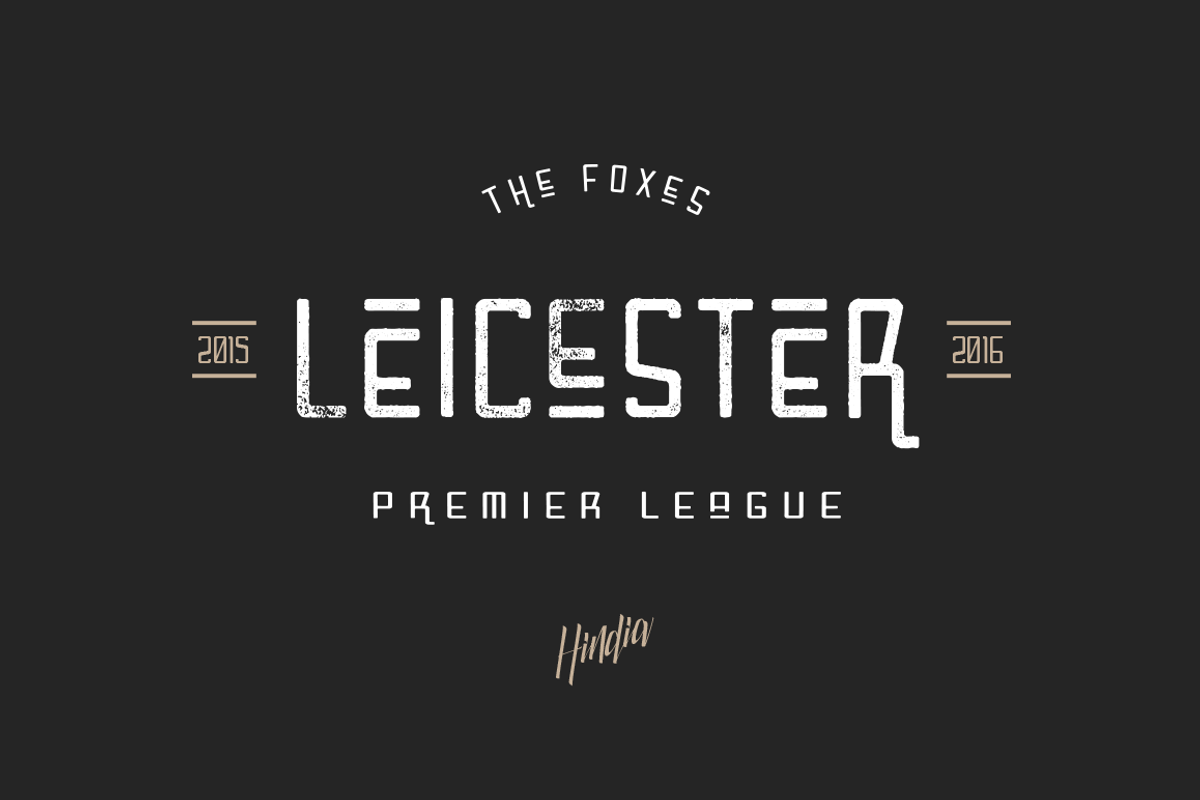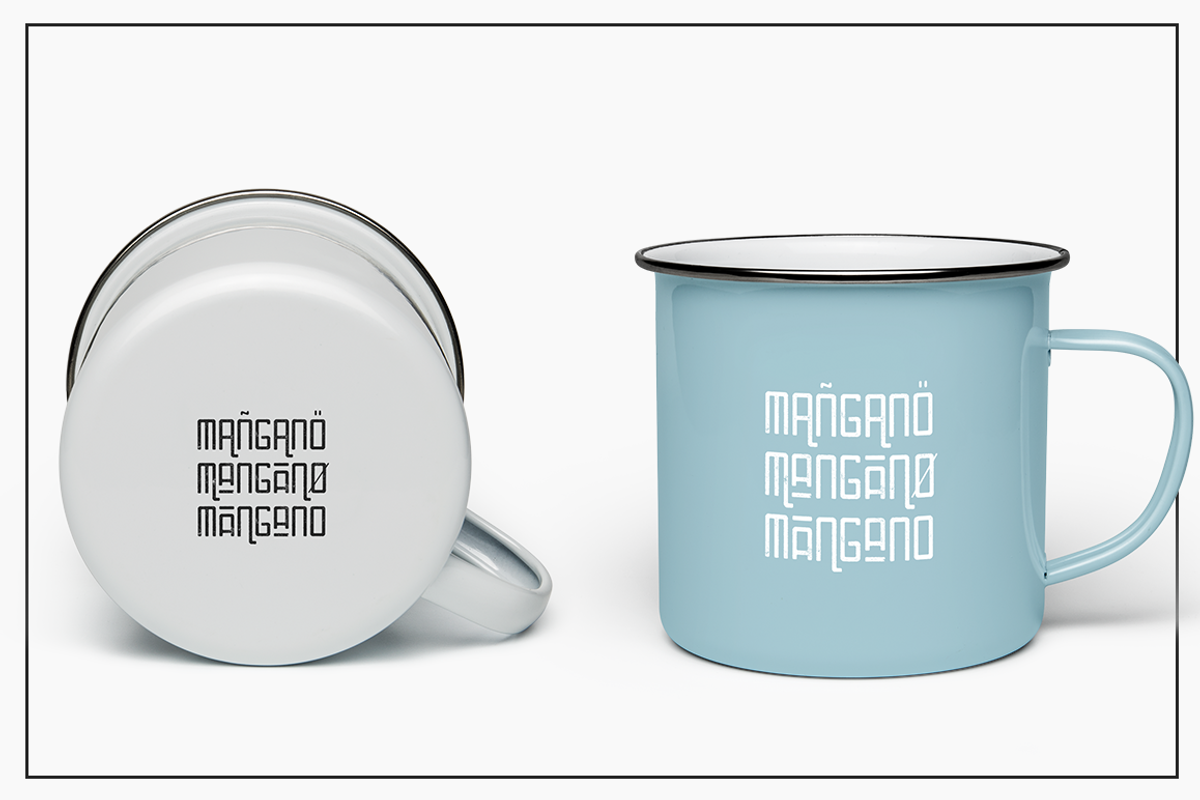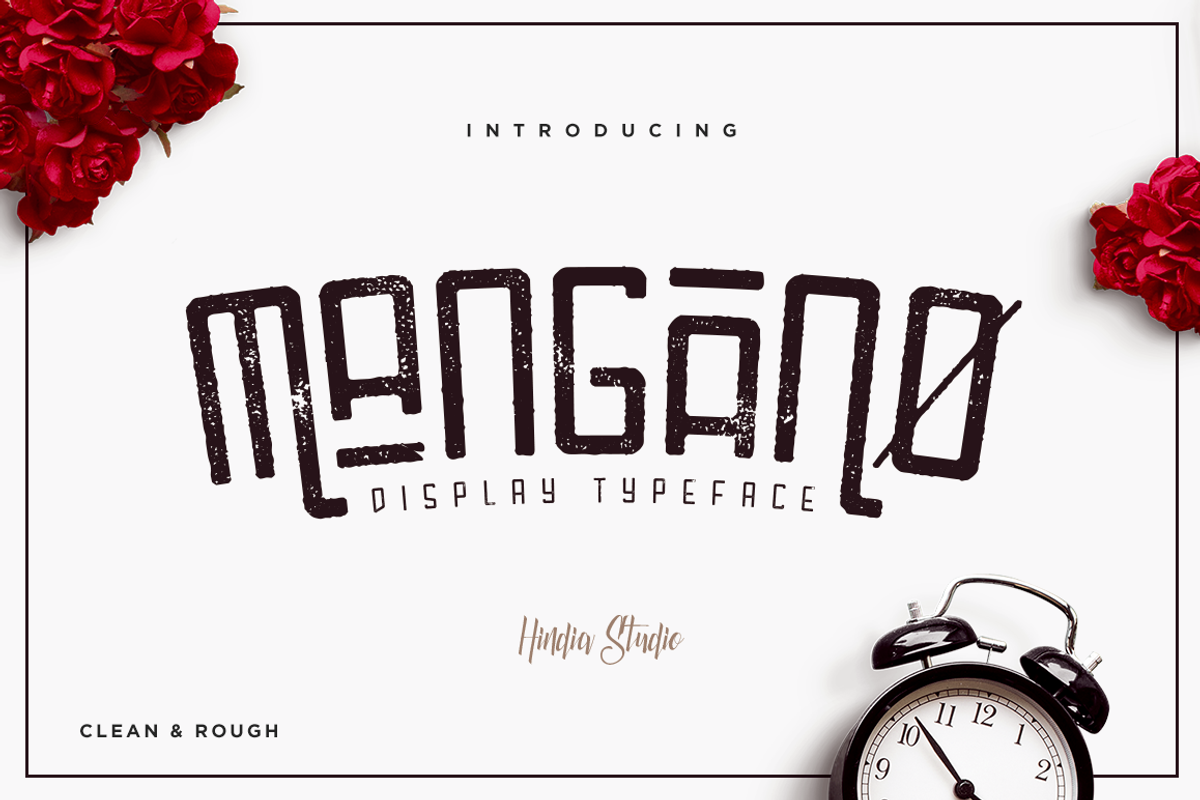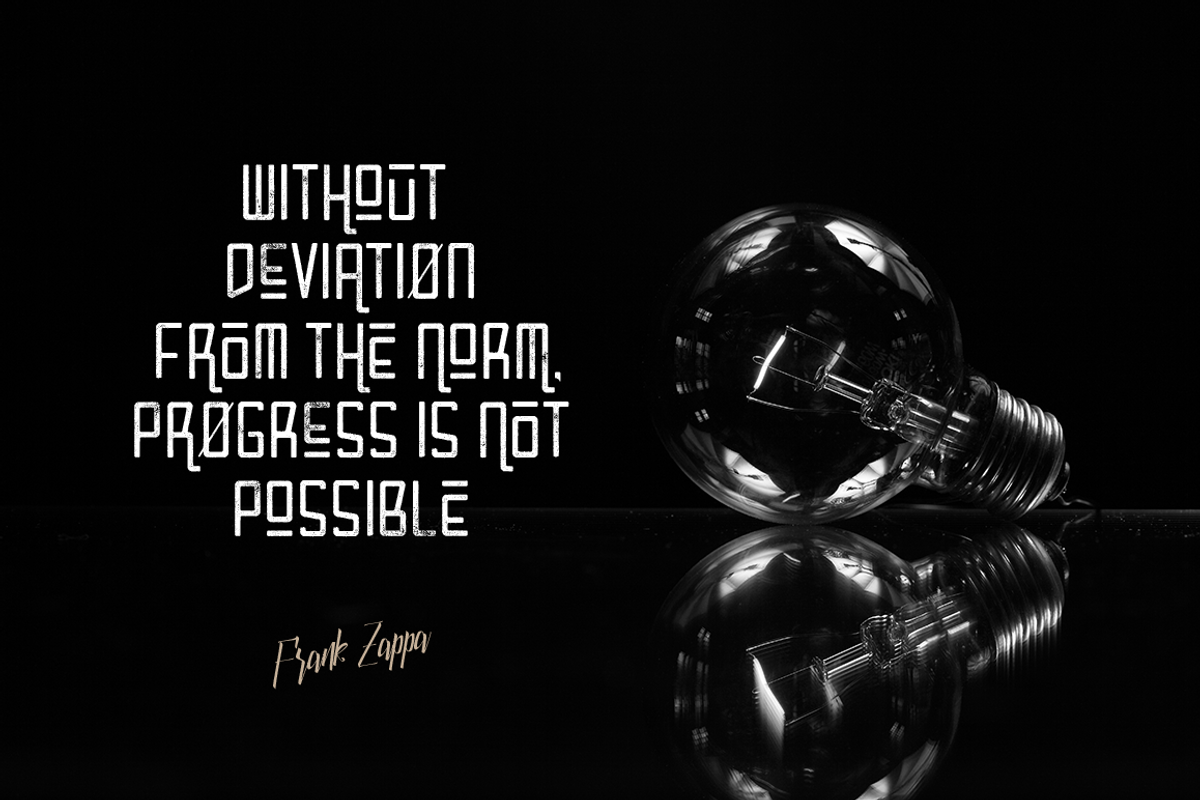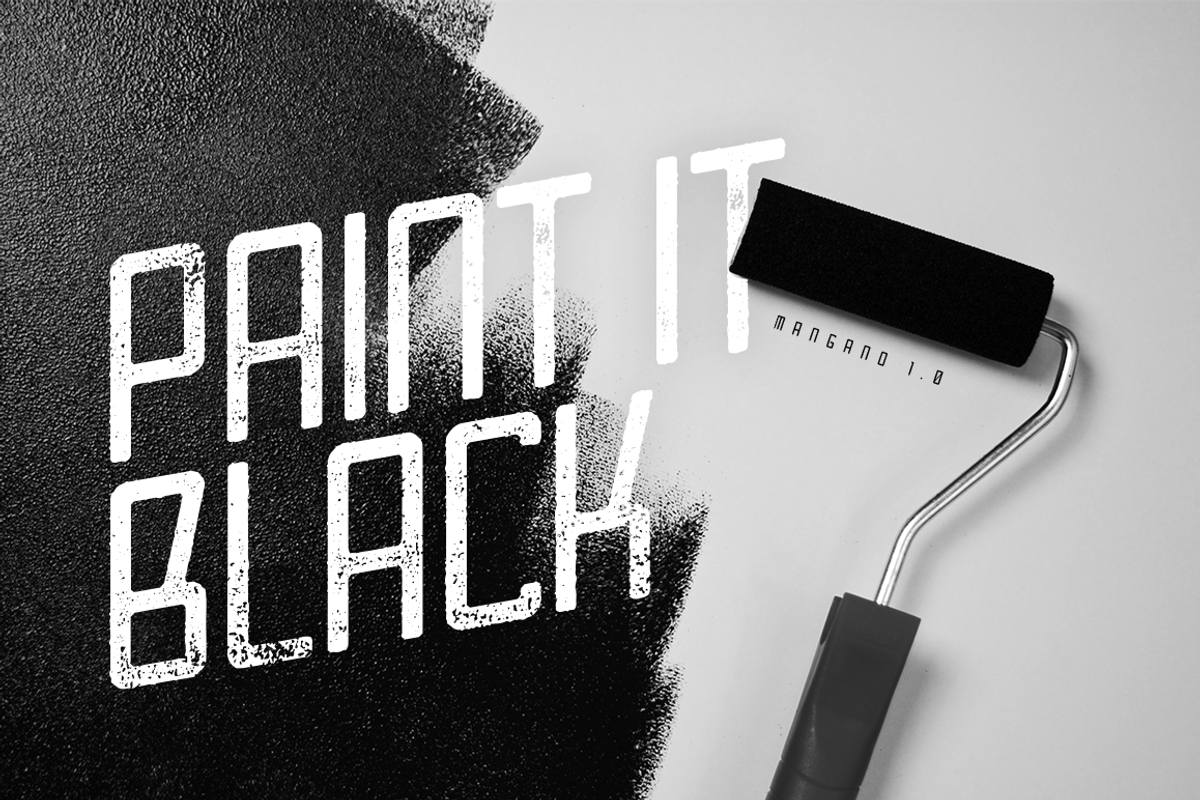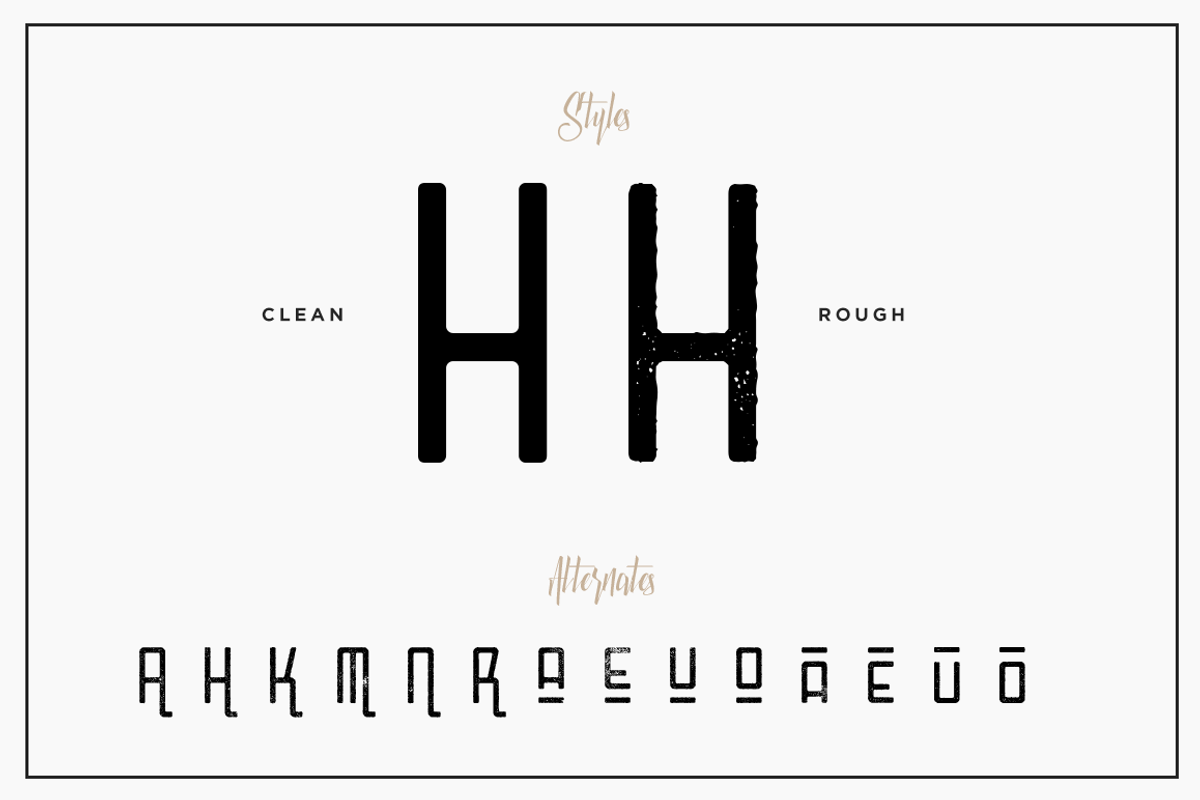
Mangano Font
MANGANO | Creative font to inspire
Mangano is a modern textured display typeface that represents both classic and modern display in one package. It has clean & rough styles, perfect for creating headline display text very easy; perfect for Logos, Advertising, Music Industry, Apparel Design, Labels, Signage, Etc.
- Mangano Clean
- Mangano Rough
- Uppercase/Lowercase
- Alternate glyphs